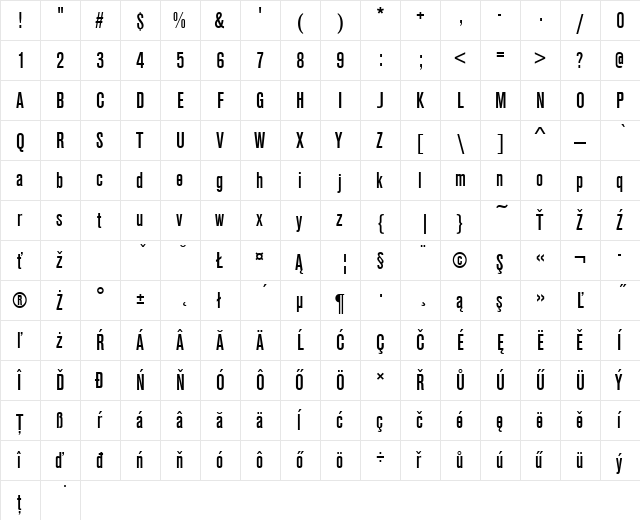
AcciusTEEMedCon Regular Font Preview
AcciusTEEMedCon Regular
AcciusTEEMedCon Regular Font Details
Design Context for AcciusTEEMedCon Typeface
AcciusTEEMedCon takes a measured approach to typography — its balanced proportions and neutral character make it a reliable workhorse for both digital and print work.